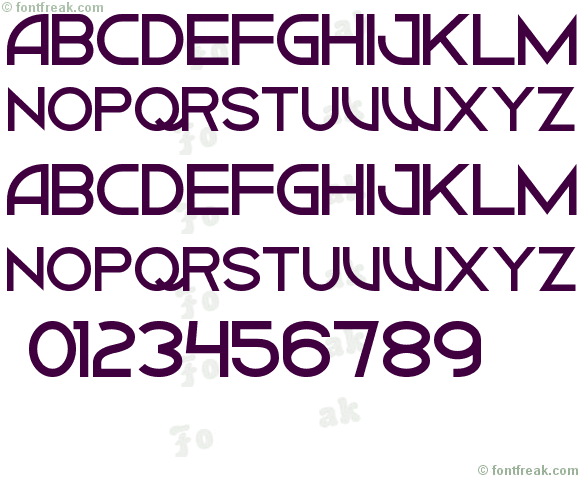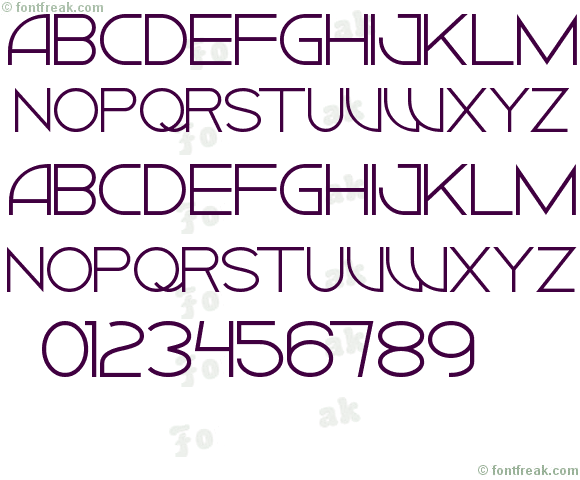
Ciudad Nueva CAPS Bold
Ciudad Nueva CAPS
About Ciudad Nueva CAPS Bold
Ciudad Nueva CAPS Bold is a striking display typeface designed by Michael Muranaka, categorized as a sans-serif font. This unique typeface features a strong, bold stroke weight that commands attention, making it an ideal choice for various design projects. The font displays a modern aesthetic with clean lines and a geometric approach, ensuring clarity and readability even at larger sizes. Its uniform spacing enhances legibility, while the absence of serifs contributes to its contemporary appeal.
This font is particularly well-suited for a range of creative applications. It works beautifully on movie posters, where its bold presence can convey excitement and drama. Additionally, Ciudad Nueva CAPS Bold is perfect for restaurant menus, giving a modern twist to traditional layouts while ensuring that dish names stand out. Graphic designers will find it useful for branding elements, such as logos and promotional materials, where a strong visual identity is essential. Furthermore, small business owners can use this font for signage and advertisements, capturing the attention of potential customers effectively.
What sets Ciudad Nueva CAPS Bold apart is its ability to blend modern design principles with functionality. Its bold nature ensures that it stands out in any context, while its clean, geometric lines provide a contemporary touch that appeals to a wide variety of users. For those interested in elevating their design projects, the Ciudad Nueva CAPS Bold font free download presents an excellent opportunity to incorporate this eye-catching typeface into their work.